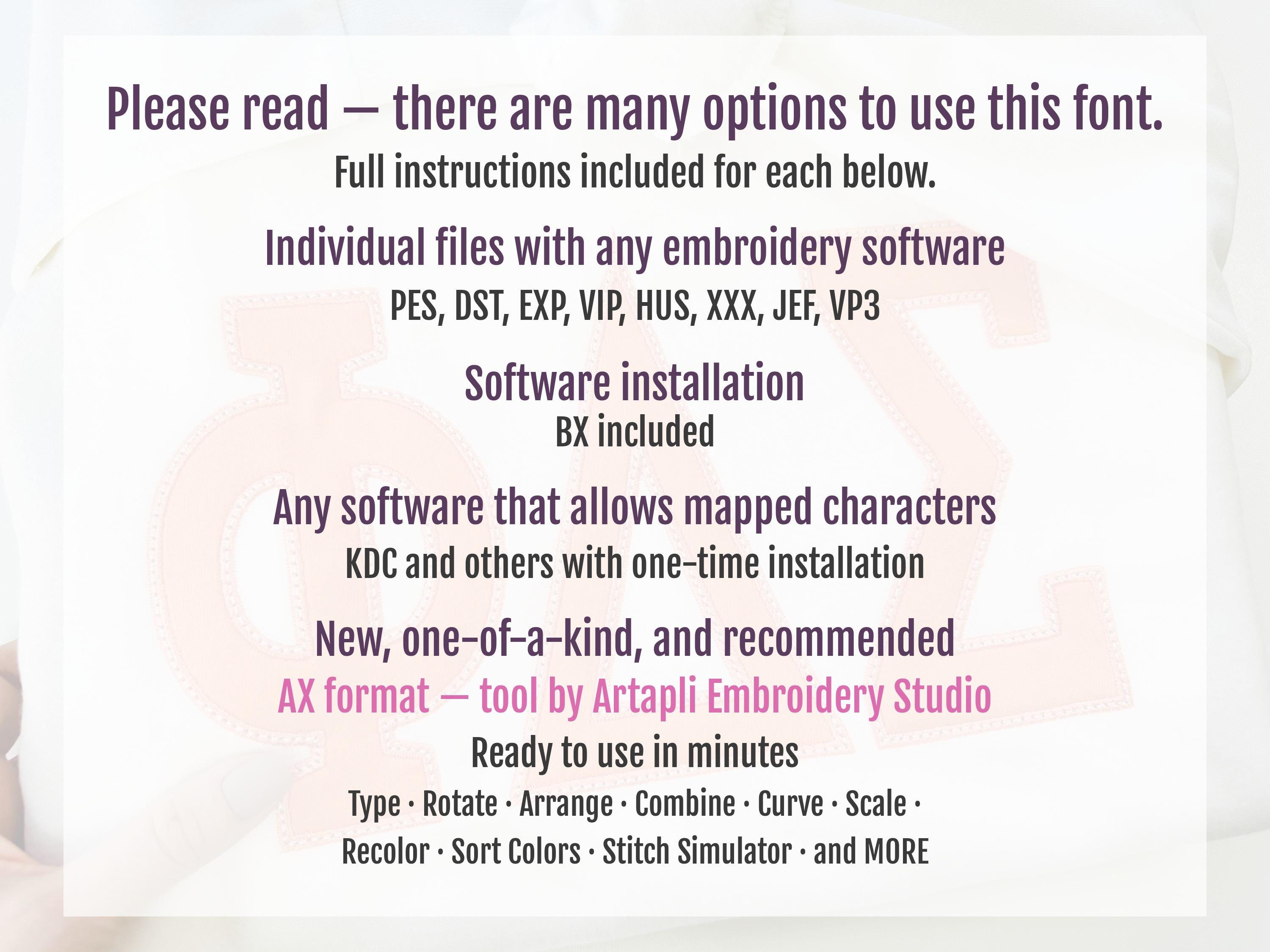
Big sizes Greek font Applique machine embroidery designs Greek alphabet monogram letters sororities fraternities large sizes 4 up to 8 inch
Whole alphabet includes 24 Greek letters.
The font has a nice satin stitch outline and a neat stitch on top of the satin (optional, you can skip it).
Stitches came out beautifully. I use it as a plain satin stitch and a full chained stitch!